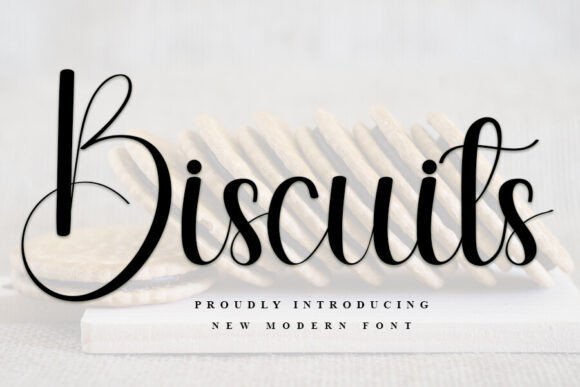
Unleash Your Creativity with Biscuits Font
Have you ever stared at a blank page, waiting for inspiration to strike? You’re not alone. We’ve all been there, searching for the perfect font to bring our design to life. That’s where Biscuits Font comes in – a versatile and elegant addition to your design arsenal.
Purposefully created to add a touch of freshness to your designs, Biscuits Font is a striking choice for a variety of projects, from YouTube banners to wedding invitations. Its simplicity and elegance make it a valuable asset for designers, allowing you to elevate your business aesthetics and communicate your visual narrative with ease.
Whether you’re a seasoned designer or just starting out, Biscuits Font is the perfect tool to take your designs to the next level. With its unique combination of simplicity and elegance, you’ll be able to create stunning visuals that capture the attention of your audience.
Biscuits Font Key Features
- Unique Characteristics: Biscuits Font is a playful, handwritten font with a mix of modern and vintage elements, making it perfect for creative projects, branding, and packaging.
Biscuits Font Review
First, let me say that I was initially drawn to Biscuits Font for its unique, hand-drawn aesthetic. The font’s quirky charm ✨ is definitely its strongest suit – it’s perfect for adding a touch of whimsy to any design project.
Some of the key strengths of Biscuits Font include:
- Its wide range of characters, including punctuation and numerals, make it a solid choice for any design task.
- The font’s highly customizable ✨ options allow you to fine-tune its appearance to suit your specific needs.
- Its versatility ✨ makes it suitable for everything from logos and branding to body text and titles.
- The font may not be the best choice for small text sizes ⚠️, as the characters can become difficult to read.
- The font’s lack of consistency ⚠️ in its letterforms can make it difficult to use in large blocks of text.
Overall, I would recommend Biscuits Font for designers looking to add a touch of personality to their projects. While it may not be the most polished or refined font, its unique charm and versatility make it a valuable addition to any design toolkit.
The Biscuits Font is perfect for:
- Whimsical and playful designs